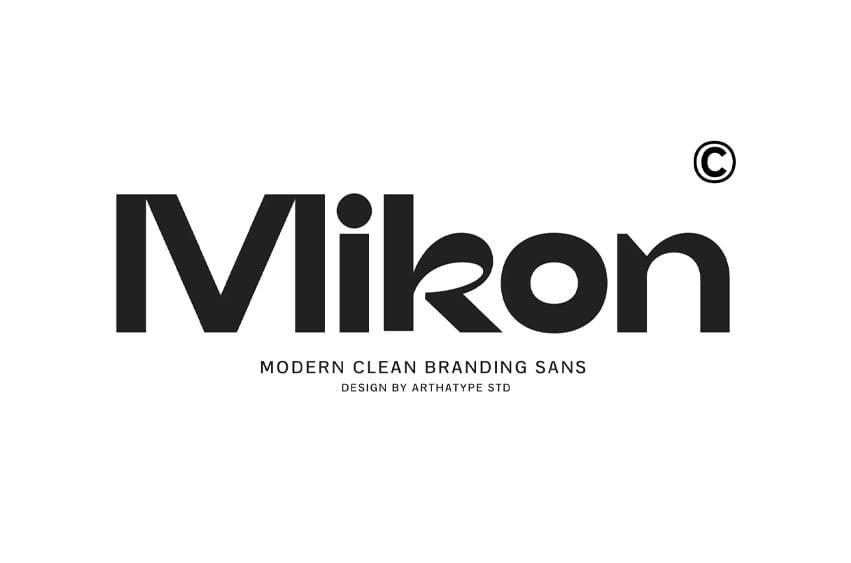
Mikon Font
Mikon Font Build unforgettable visual identities with AT Mikon—a modern branding display sans by Arthatype Studio, engineered for distinctive logos, striking wordmarks, and contemporary brand systems. Combining strong geometric proportions with expressive, decorative letter details, Mikon brings a confident, creative edge to every composition.
Its unique construction—highlighted by eye-catching curve details—makes it the ultimate choice for projects where typography serves as the core visual anchor. From sharp brand logos to oversized editorial headlines and campaign titles, AT Mikon delivers a fresh, memorable personality that makes your brand stand out instantly.
Perfect For:
• Branding & Logo Design (Modern Companies, Creative Wordmarks, Identity Systems)
• Visual Identity Systems (Brand Guidelines, Stationeries, Digital Assets)
• Posters & Display Typography (Event Graphics, Exhibition Banners, Creative Posters)
• Packaging & Product Design (Product Labels, Brand Packaging, Badges)
• Editorial & Magazines (Cover Titles, Publication Headlines, Editorial Layouts)
• Digital & Web Banners (Website Headers, UI Display, Social Media Graphics)
• Uppercase & Lowercase
• Numbers & Punctuation
• Multilingual Support
• Standard Ligatures & Stylistic Alternates
• Smooth Kerning